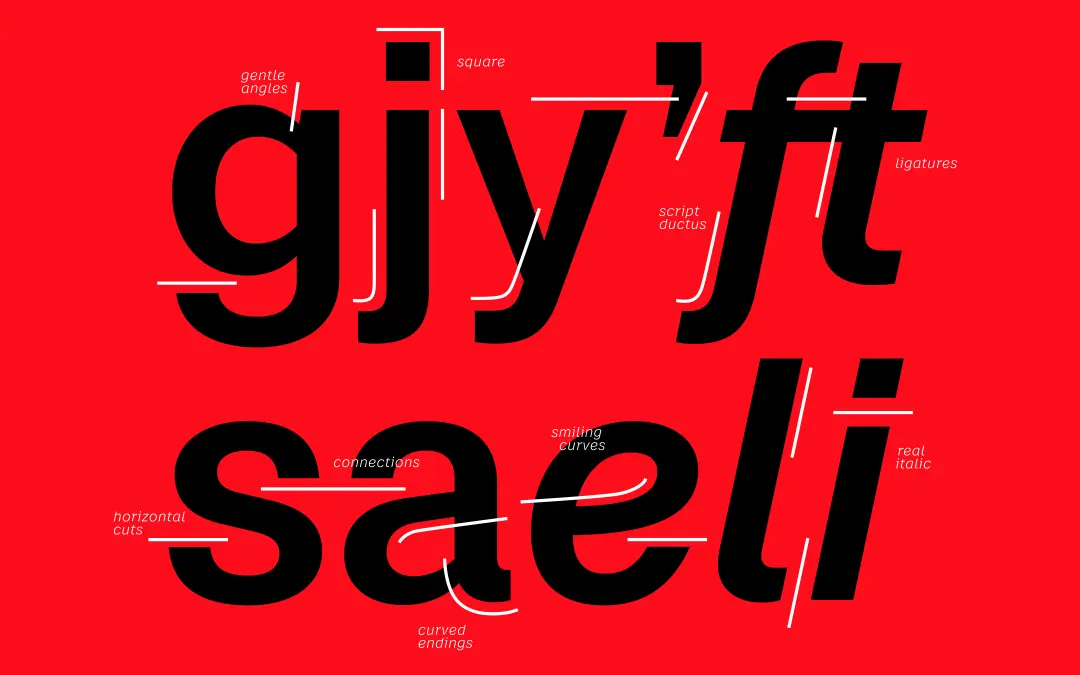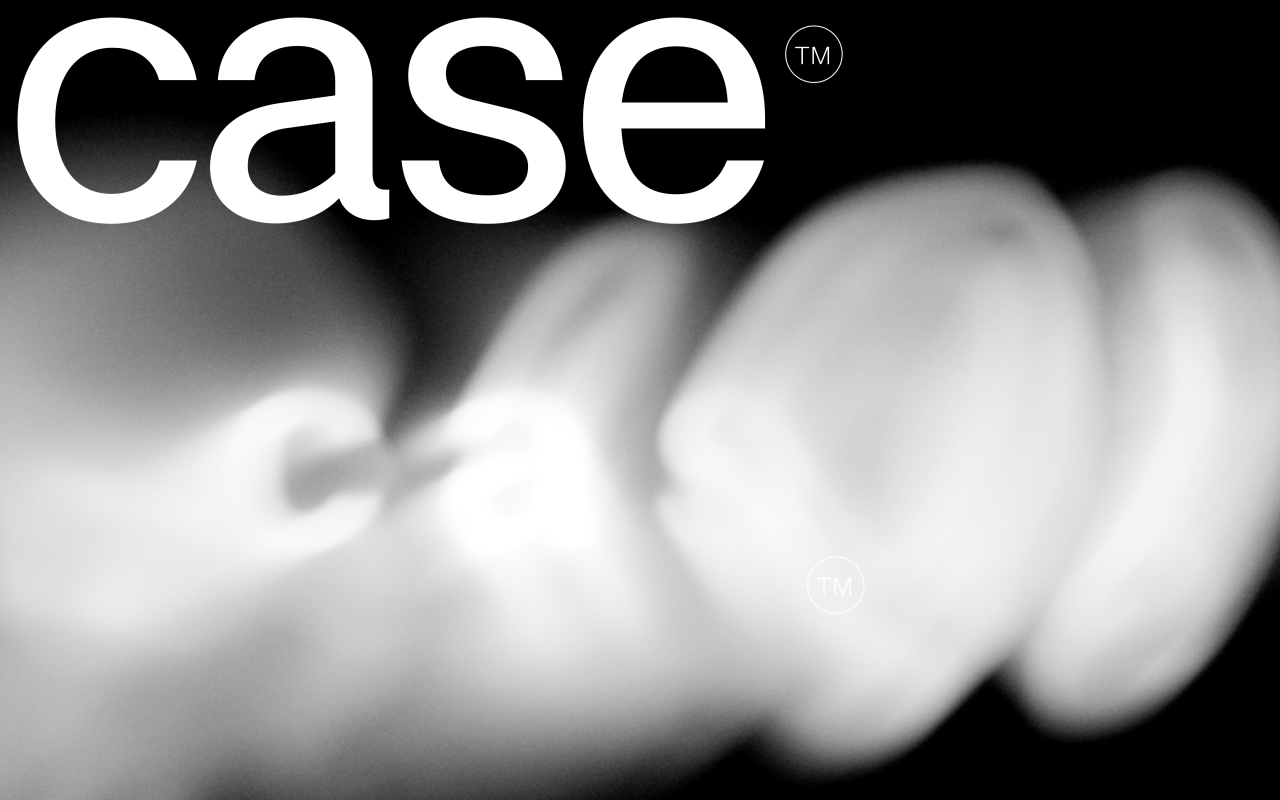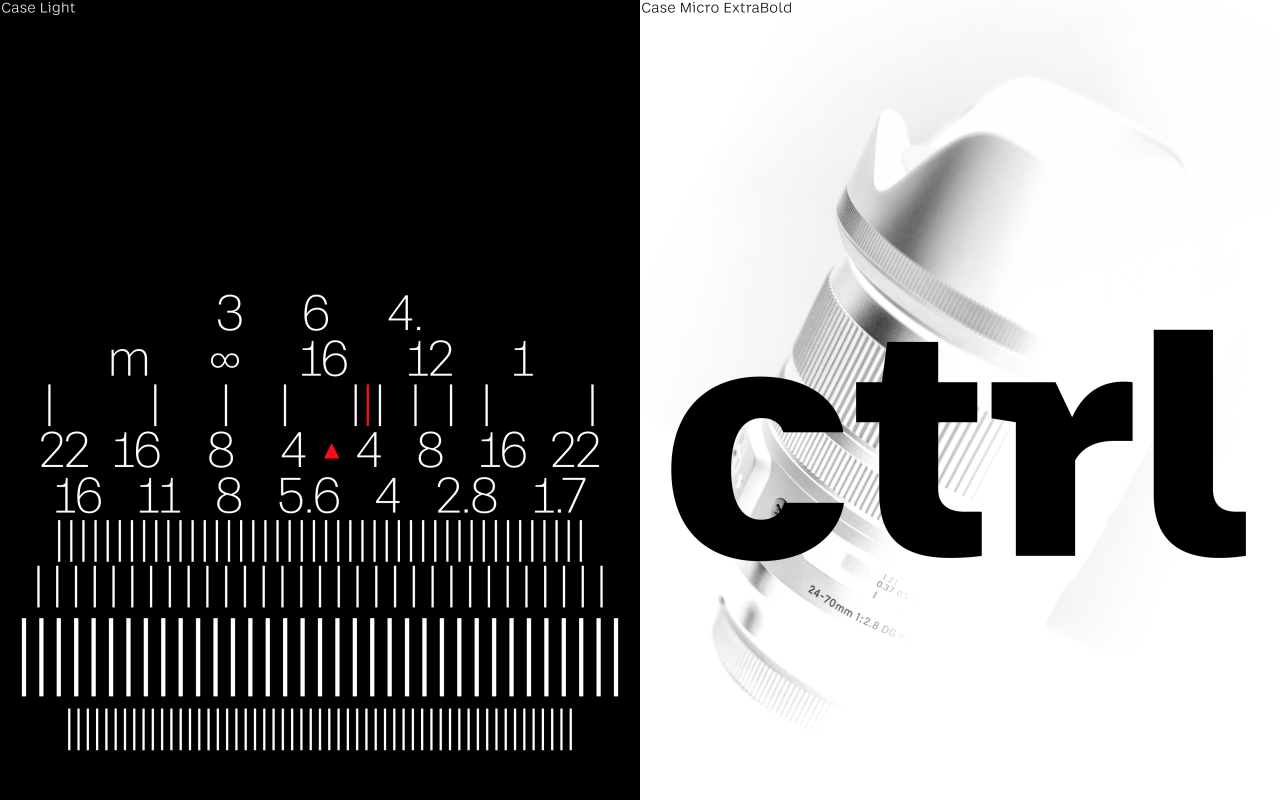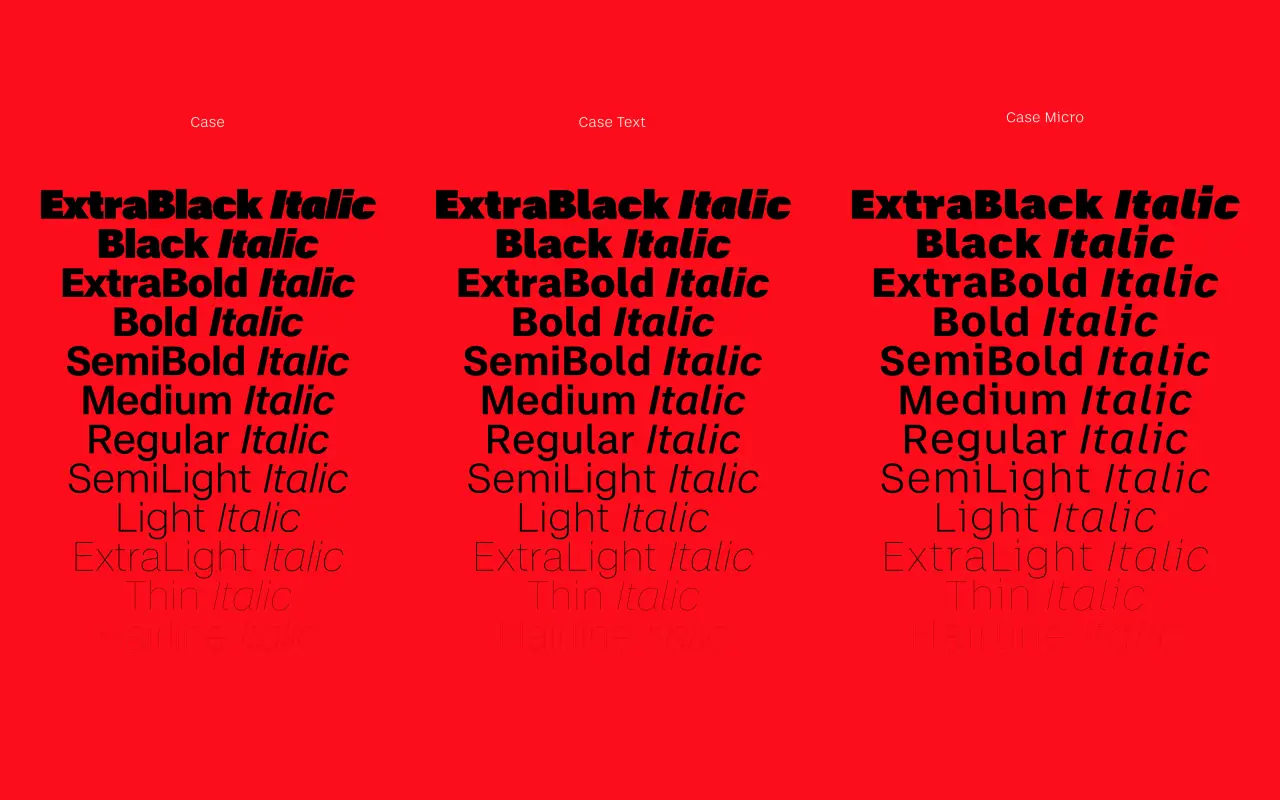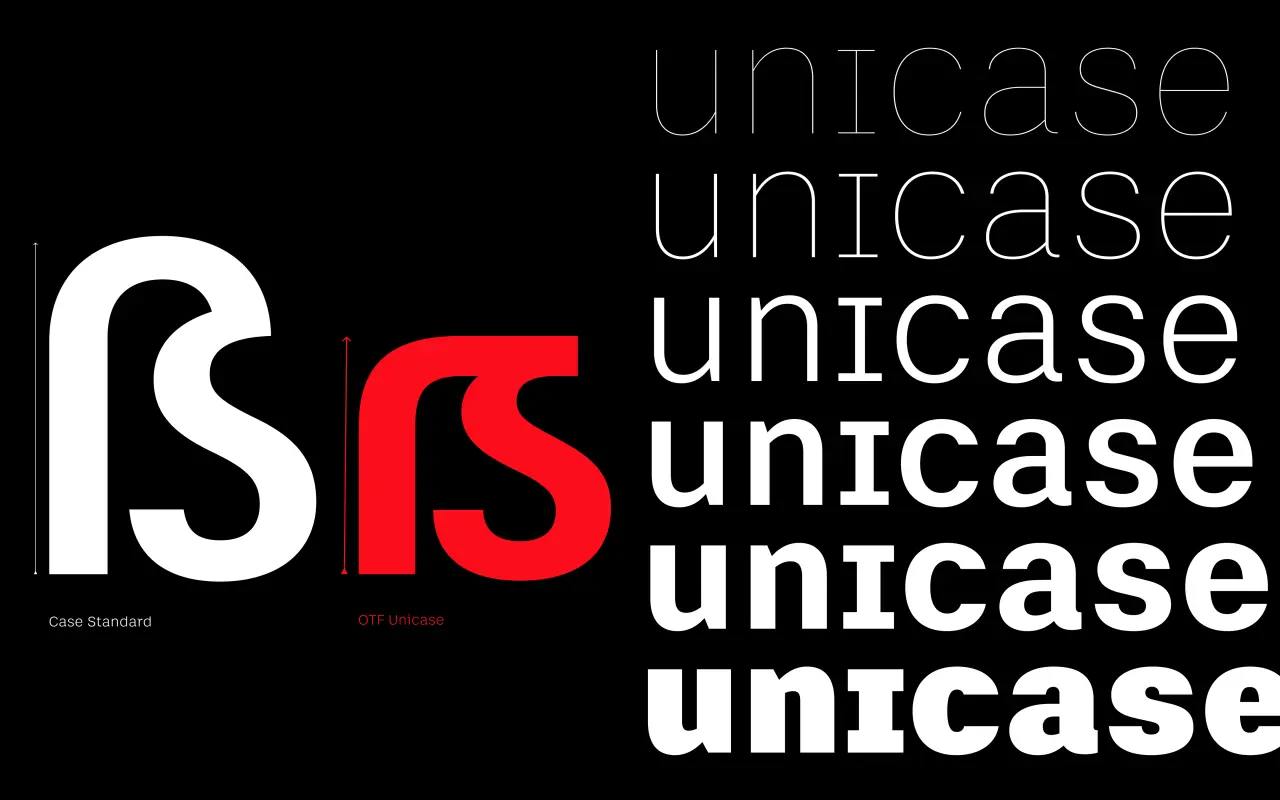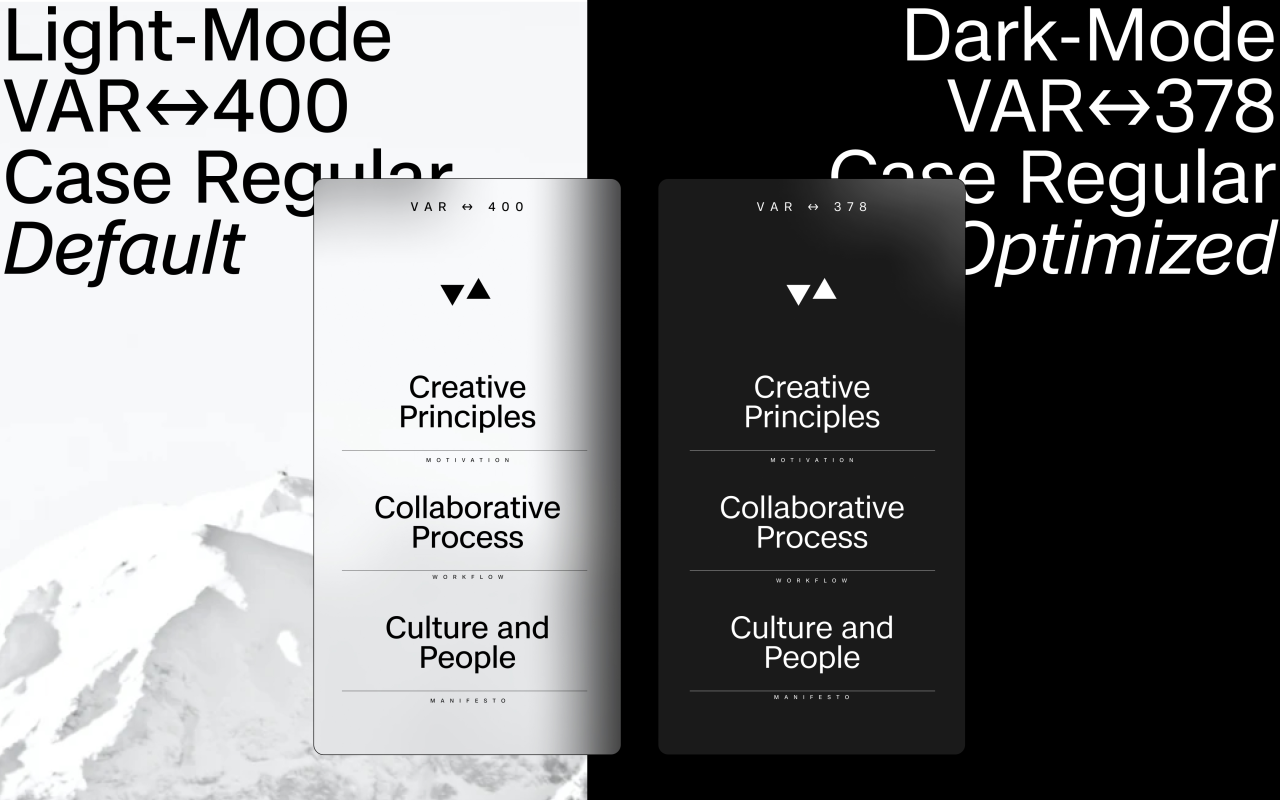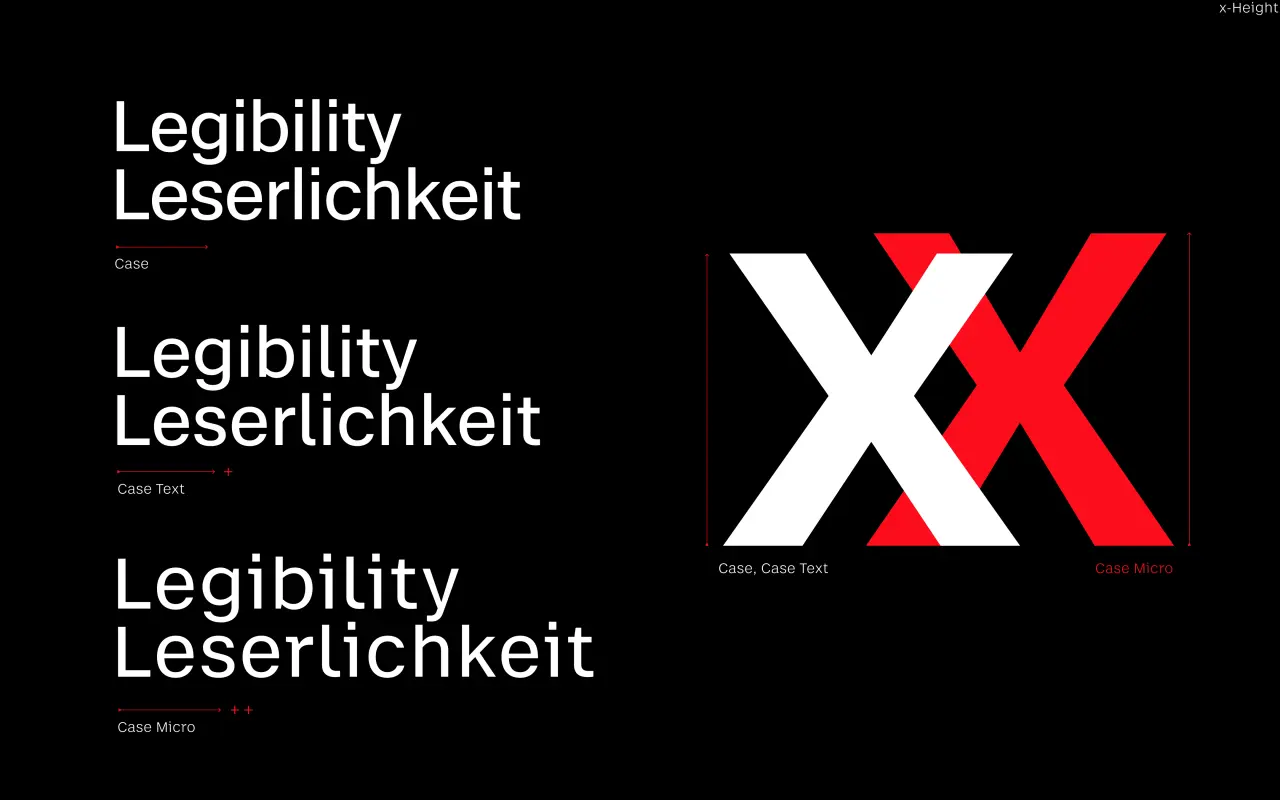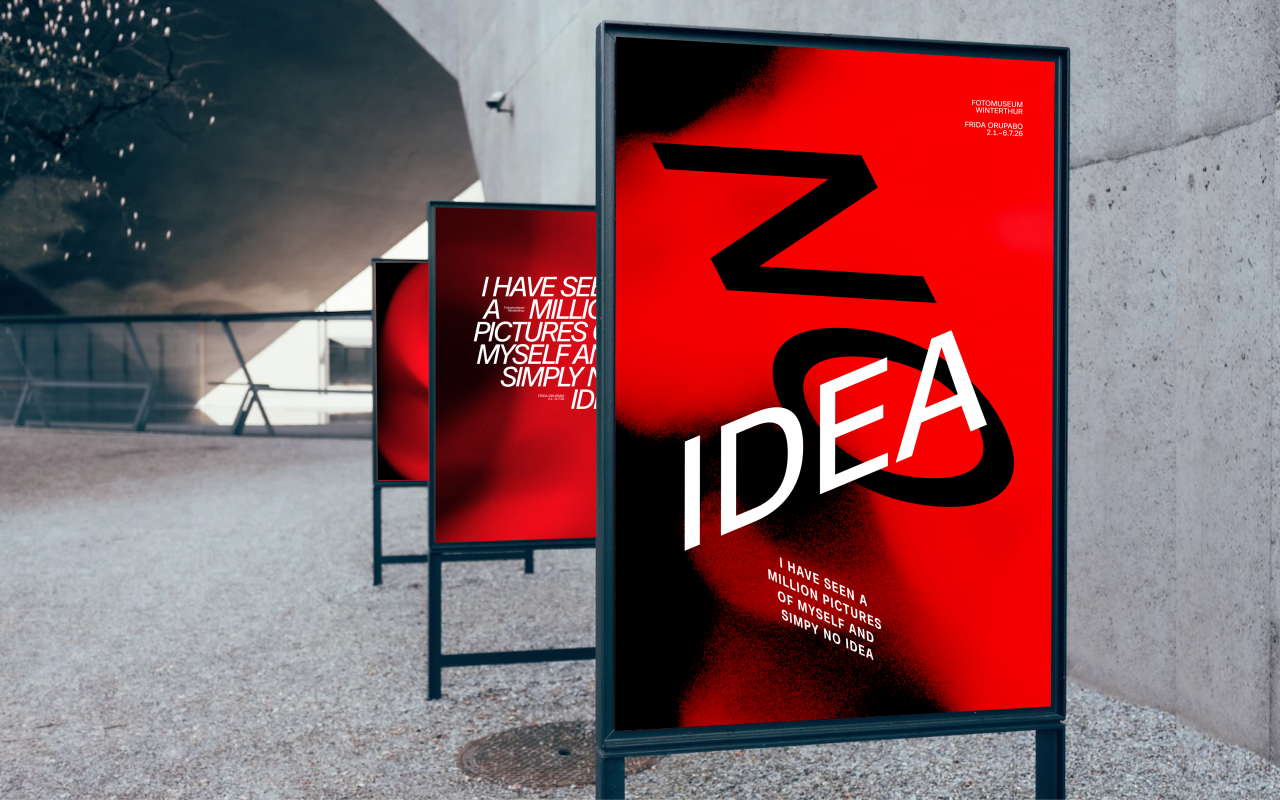
Berlin type foundry Fontwerk have been busy beavers lately. A few weeks back, we shared their fun new typeface hamster Hamster. Today they're releasing the newest iteration of their popular neo-grotesque font, Case 2.0.
To explain why that's significant, let's first take a step back.
One of the most common dilemmas in typography is: do you go for a classic or something entirely new? Classic fonts offer authority, precision, a sense of class and underlying reliability: they are, after all, seen as 'classics' for good reason. But at the same time, you don't want your designs to seem samey, hence the pull towards custom fonts for a more original look and feel.
Fontwerk's Case Collection was born out of decades of experience working on many corporate fonts where the clients wanted their own version of a sans-serif in the style of the popular classics. And so often, their famed type designers, including Erik Spiekermann, Anja Meiners and Ralph du Carrois, often found themselves working on a variation of the omnipresent Neo-Grotesque.
In 2020, they brought together the best bits of this genre with a new, modern vitality in the form of a Case, which they described as "a modern Neo-Grotesque for the new Twenties". Now, with Case 2.0, they've completely reworked this matter-of-fact and confident typeface for the world of 2023.
What's new in Case 2.0?
In this brand new version, the team has revised it from the ground up, doubled the number of fonts and characters, added a unicase feature and expanded the language support dramatically. Case now includes support for Cyrillic, Greek and Vietnamese as well as Latin African languages.
Case 2.0 includes three optical sizes, which allow a high degree of application-specific optimisations. And as previously, the new version of Case proves a familiar and reassuring neutrality with just that little bit extra to help it stand out from its competitors.
"With a striking emphasis on horizontals, remarkable legibility, real italics, and the support of 490 languages, Case 2.0 is a modern alternative to the classics and confidently keeps up with the ever-growing demands of complex branding projects," explains Fontwerk founder Ivo Gabrowitsch. "We're delighted to have worked closely with Ralph, Anja and Erik to produce a no-nonsense yet nuanced typeface that brings character and freshness to the world's most popular font genre.
"Case is full of know-how and little surprises with a no-nonsense personality," he adds. "It's a breath of fresh air in an otherwise bloated font genre, and we believe it has the potential to become a classic of the future."